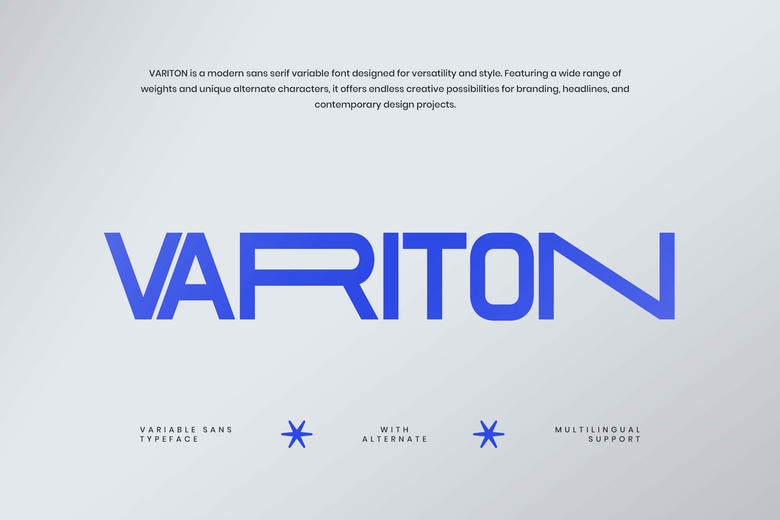
Variton Font
Variton is a modern sans-serif font designed for versatility and clarity, making it a great choice for today’s design projects. Its clean lines, balanced shapes, and subtle futuristic style create a bold look without losing a sense of simplicity.
Variton Sans Serif Font